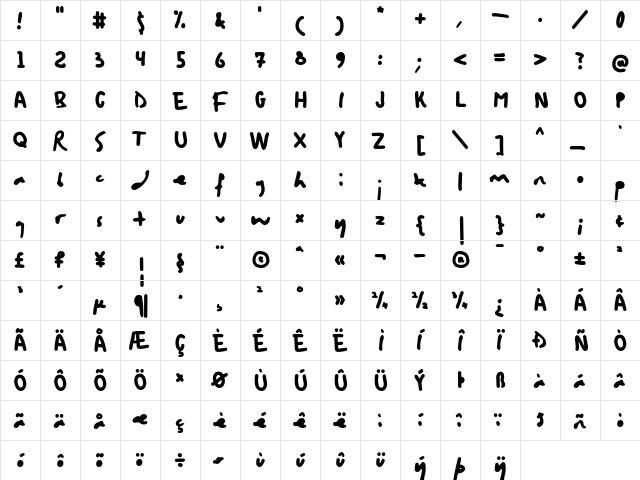
Bristol Regular
| Designer | Jovanny Lemonad |
Design Context for Bristol Typeface
Bristol is a composed and adaptable typeface that performs quietly and consistently across a wide range of design contexts.